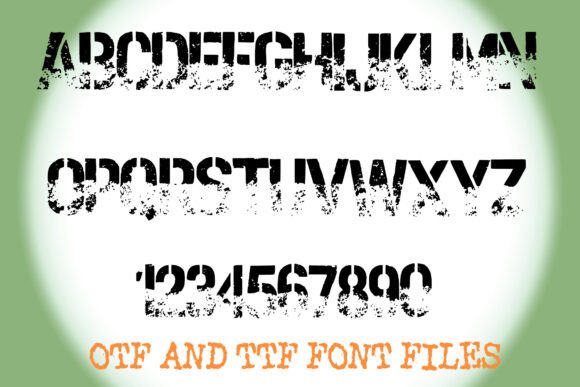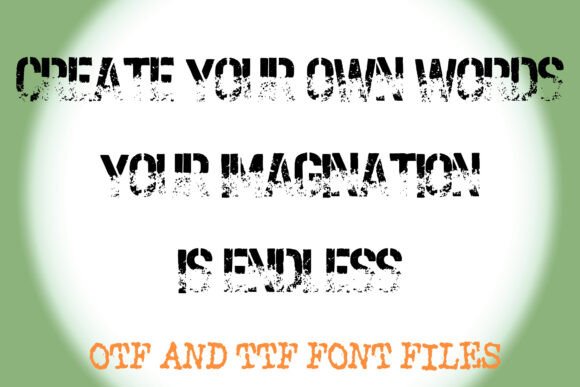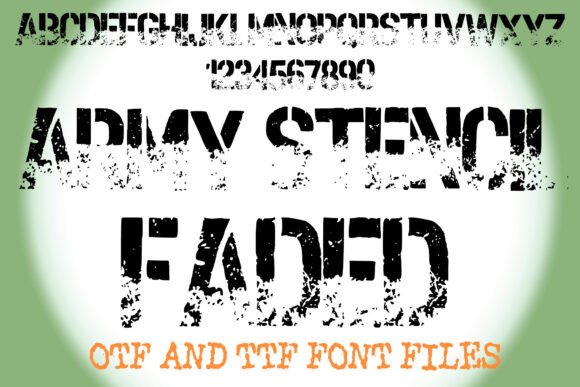
Discover the Unique Charm of Army Stencil Faded Font
In the realm of typography, fonts play a pivotal role in conveying messages, evoking emotions, and defining the aesthetic appeal of any design. Among the myriad of font styles available, the Army Stencil Faded Font stands out for its distinctive, rugged charm. This font delivers a lighter, weather-beaten variant of the classic stencil style, making it an excellent choice for designers and crafters looking to infuse their projects with a vintage, survivalist vibe or a gritty, worn look.
The Essence of Army Stencil Faded Font
The Army Stencil Faded Font is characterized by its eroded edges and faded finish, which give it a uniquely weathered appearance. This font style draws inspiration from the classic stencil fonts used in military and outdoor gear, but with a softer, more subdued approach. The faded effect lends a sense of age and durability, suggesting that the words or messages set in this font have withstood the elements and the test of time.
Applications in Design and Crafting
The versatility of the Army Stencil Faded Font makes it suitable for a wide range of applications. Here are some areas where this font truly shines:
- Vintage Aesthetics: For projects that aim to evoke a sense of nostalgia or a vintage feel, such as in fashion design, packaging, or advertising, the Army Stencil Faded Font adds an authentic touch.
- Survival Gear Branding: Given its rugged and durable appearance, this font is perfect for branding survival gear, outdoor equipment, or any product that is designed to withstand harsh conditions.
- Gritty, Worn Look: For designers looking to convey a sense of resilience, grit, or a worn, battle-hardened aesthetic in their work, this font provides an instant visual cue.
- DIY and Crafting: Crafters and DIY enthusiasts can use this font in their projects, such as custom apparel, accessories, or home decor, to add a personalized, rugged touch.
Design Tips for Using Army Stencil Faded Font
To make the most of the Army Stencil Faded Font, consider the following design tips:
- Pair with Contrasting Fonts: Combine the Army Stencil Faded Font with cleaner, more modern fonts to create visual contrast and hierarchy in your designs.
- Experiment with Textures: Enhance the weathered look of the font by overlaying it with textures that mimic fabric, metal, or wood.
- Play with Colors: While the faded effect is typically associated with muted tones, experimenting with bold colors can give the font a unique, eye-catching appearance.
- Consider Size and Placement: The Army Stencil Faded Font works best when it’s allowed to stand out. Use it sparingly and in larger sizes to emphasize key messages or titles.
The Army Stencil Faded Font offers designers and crafters a unique tool to add character and story to their work. Its distinctive blend of classic stencil style with a weathered, faded finish makes it perfect for projects that require a touch of ruggedness, vintage charm, or survivalist ethos. By incorporating this font into your design arsenal, you can create visually compelling and emotionally resonant projects that stand out from the crowd.
Whether you’re a professional designer looking for a new way to challenge your creativity or a crafter seeking to add a personalized touch to your projects, the Army Stencil Faded Font is sure to inspire and enhance your work.